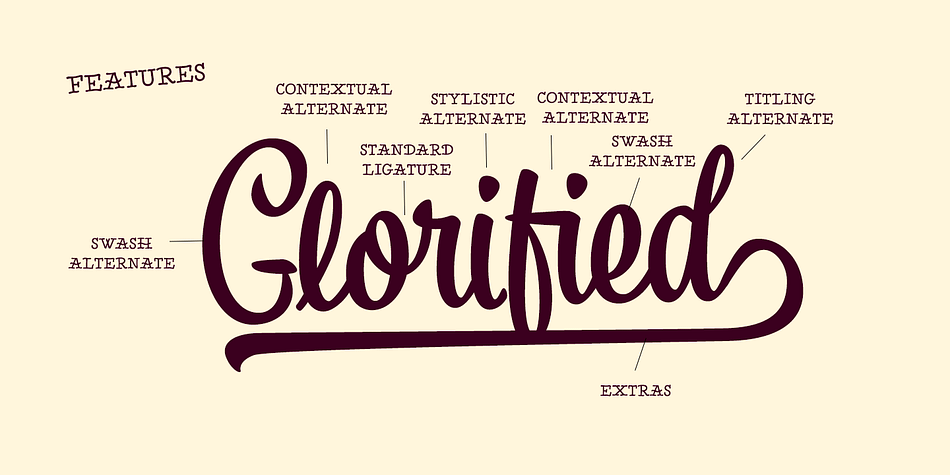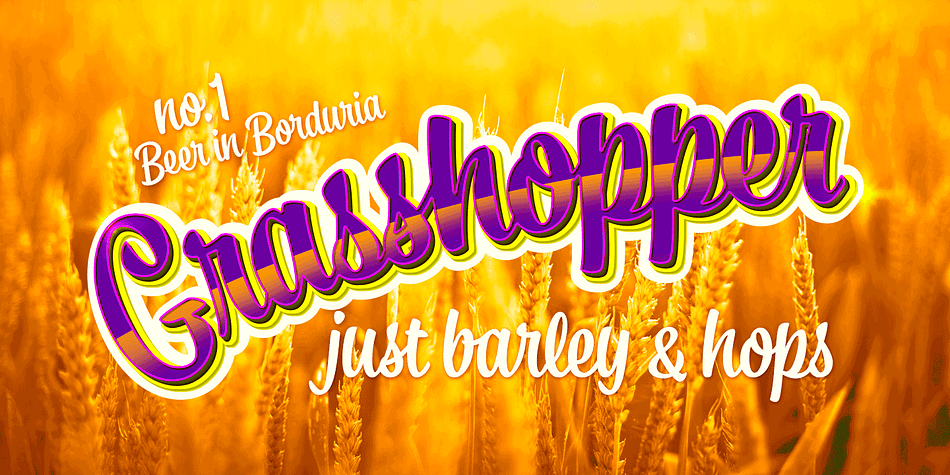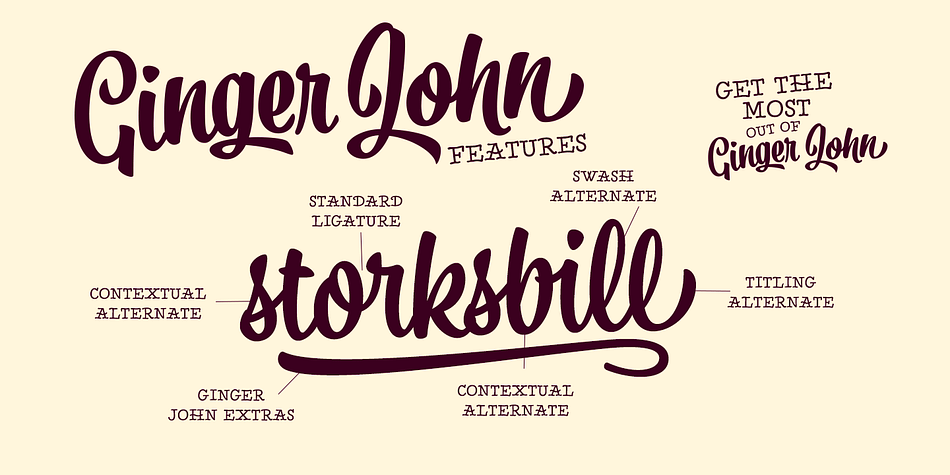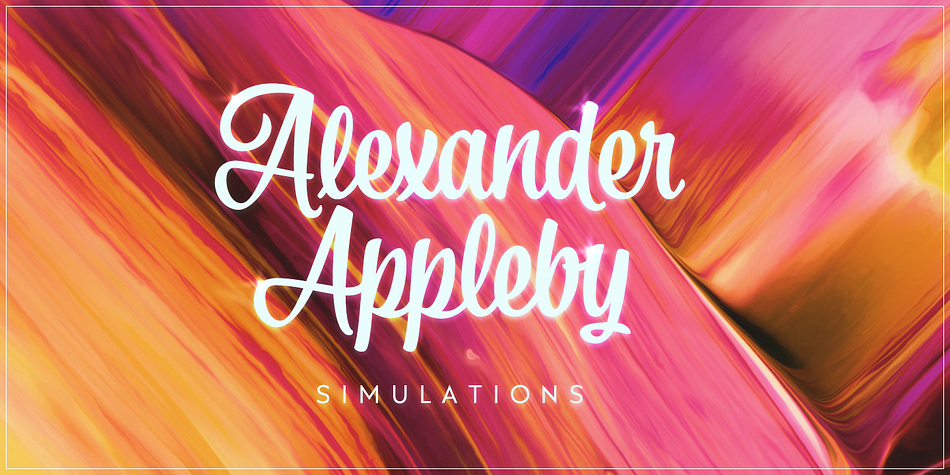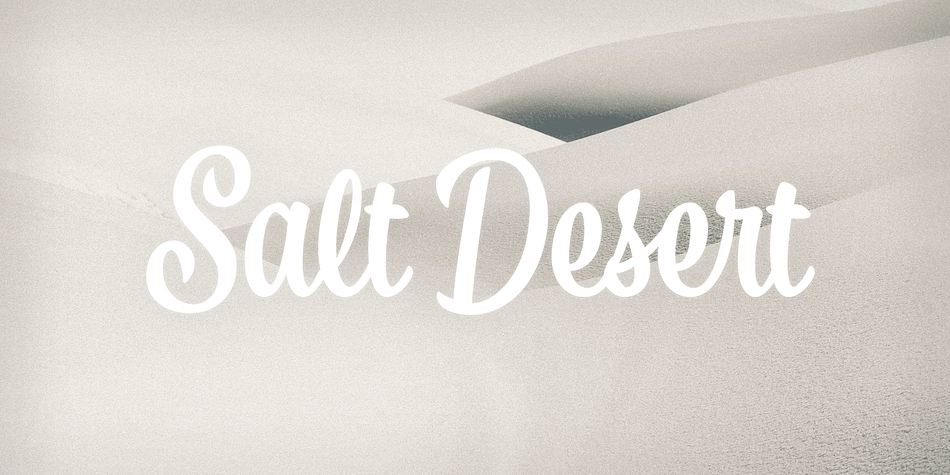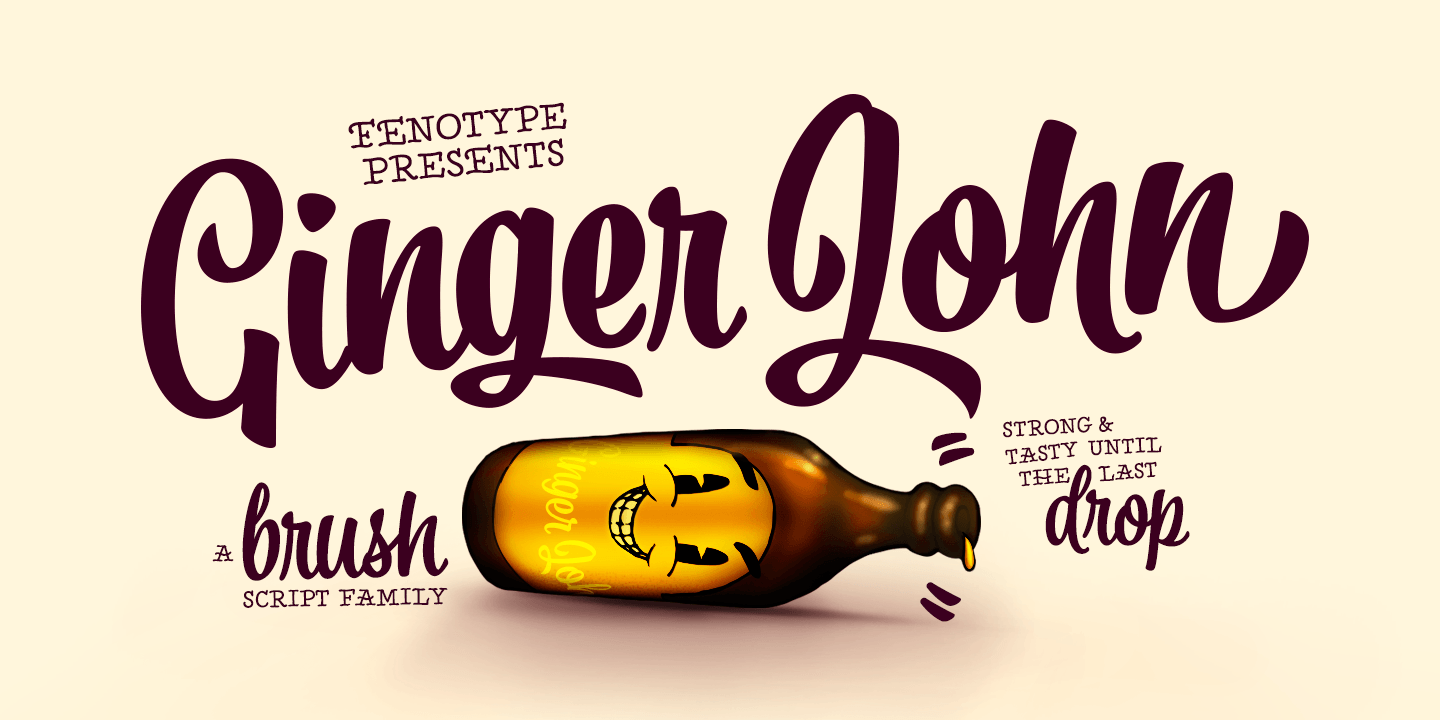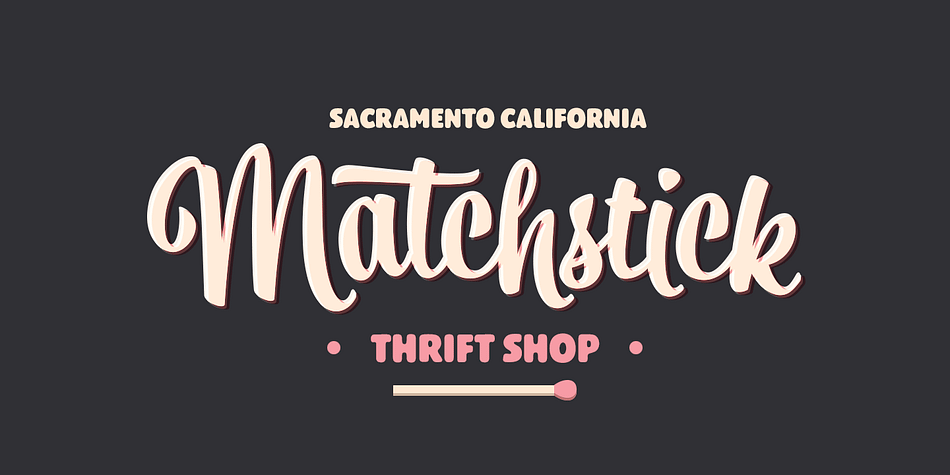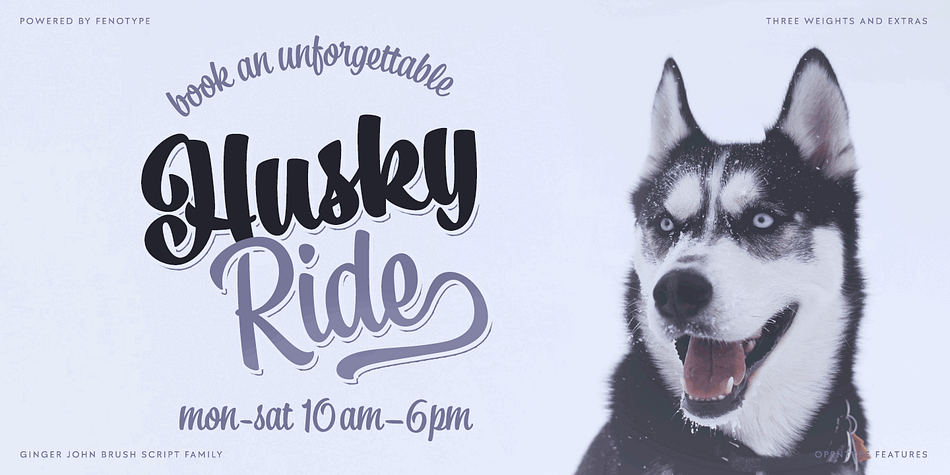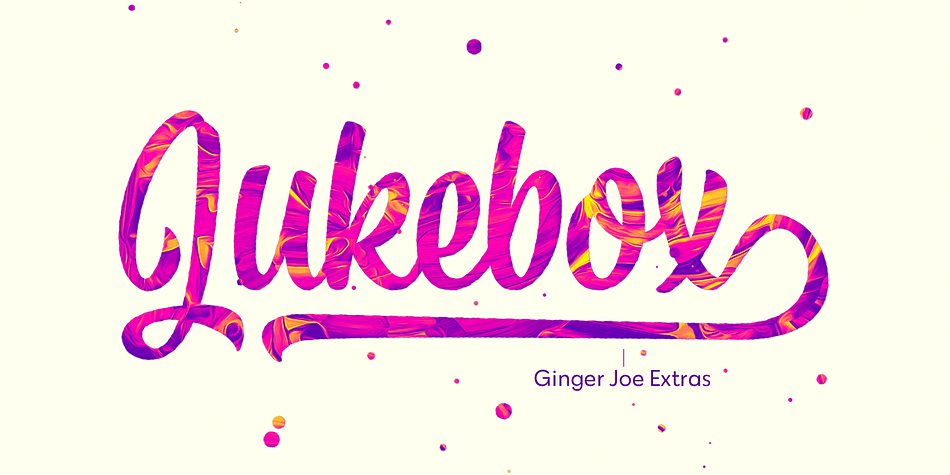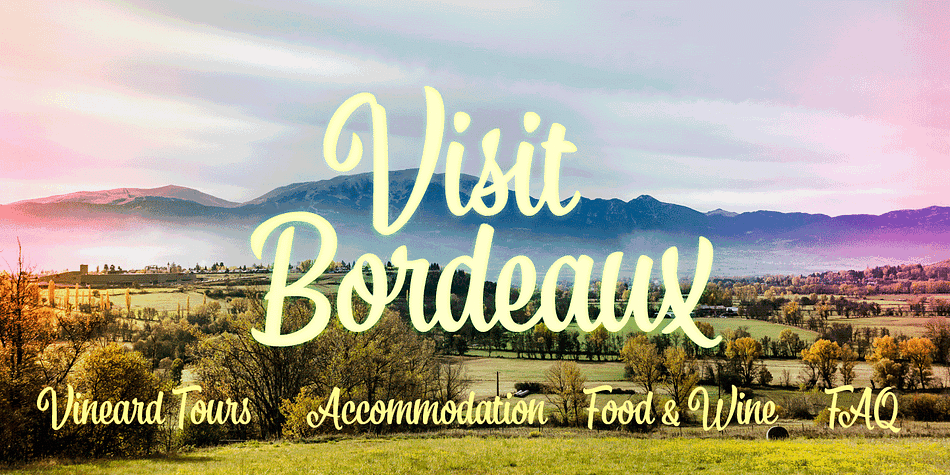
Designed by Emil Bertell, Ginger John is a dingbat and brush script font family. This typeface has four styles and was published by Fenotype.
Ginger John is a strong and expressive sign painting style brush script family with three weights.
Ginger John is equipped with automatic Contextual Alternates and Standard Ligatures that ad variety in the flow and keep connections smooth. If that isn’t enough there’s Swash, Stylististic and Titling Alternates for every standard uppercase and lowercase character.
Ginger John Extras is a pack of strokes and swashes that can be used as underlining endings for words.
Ginger John is an outstanding display font that works great for any display use from branding to packaging to logotype.